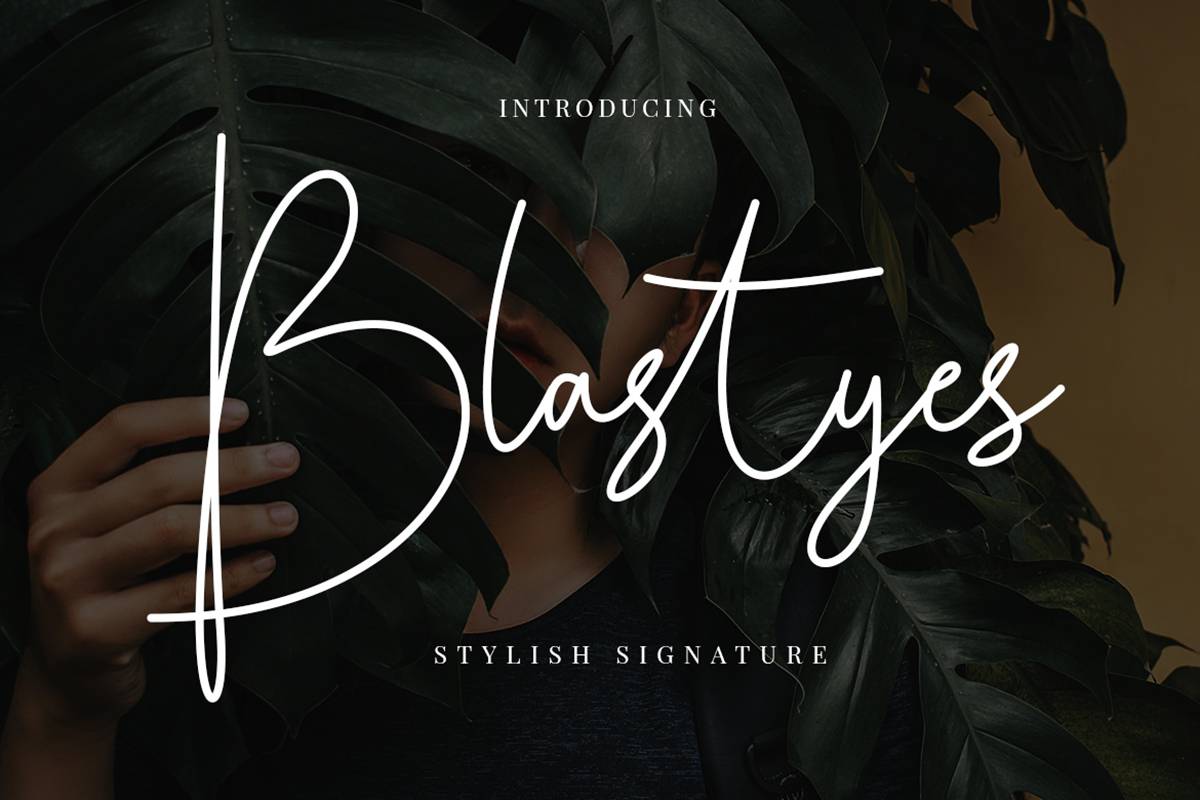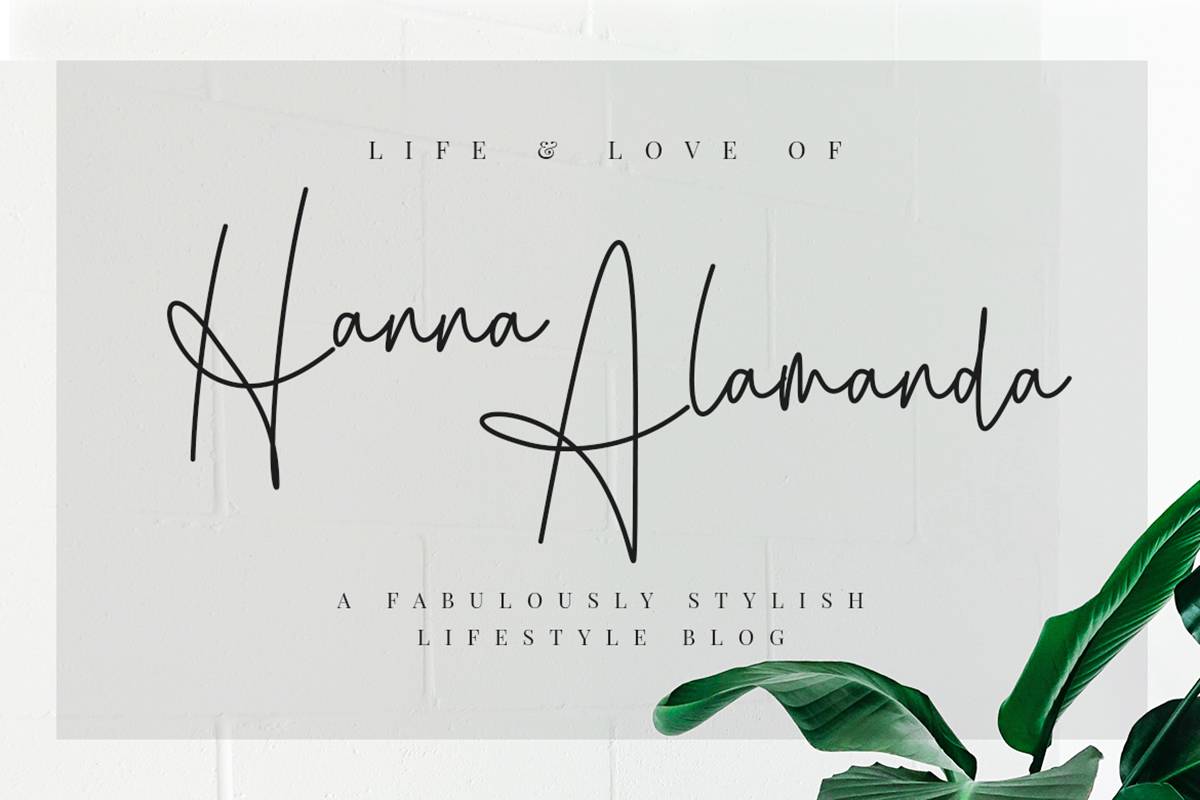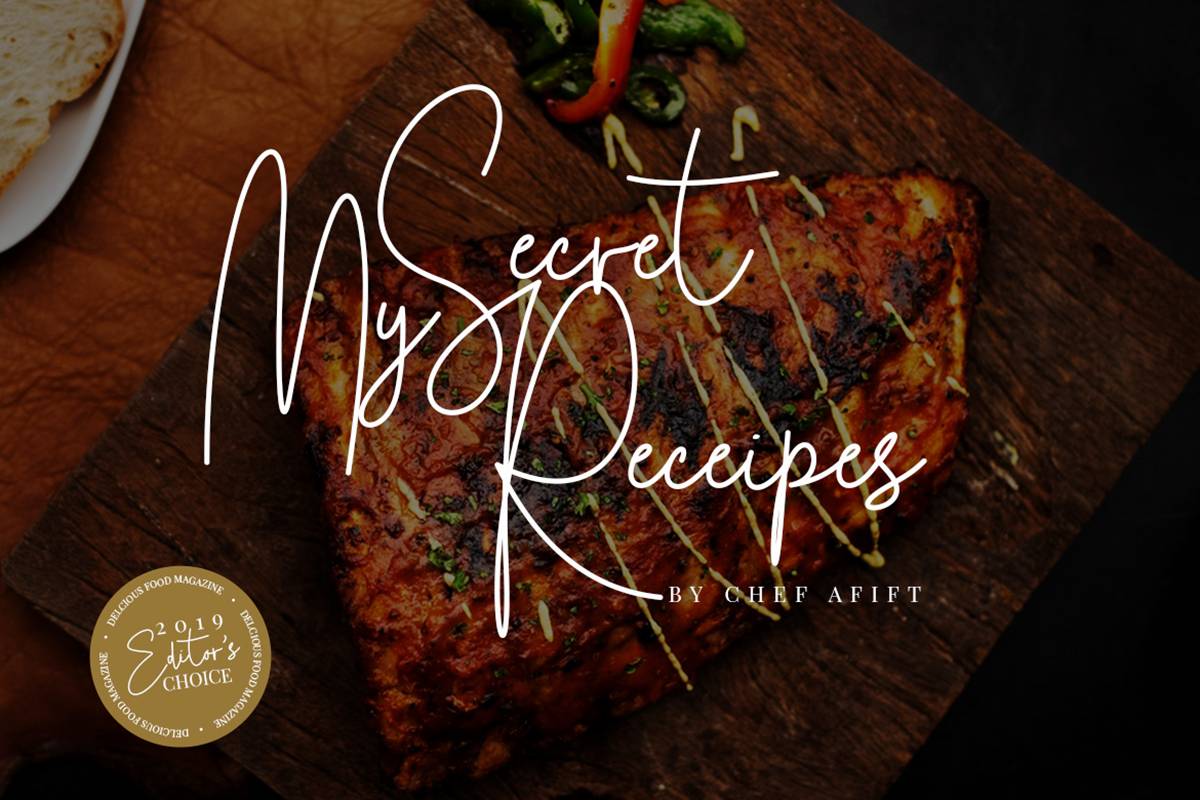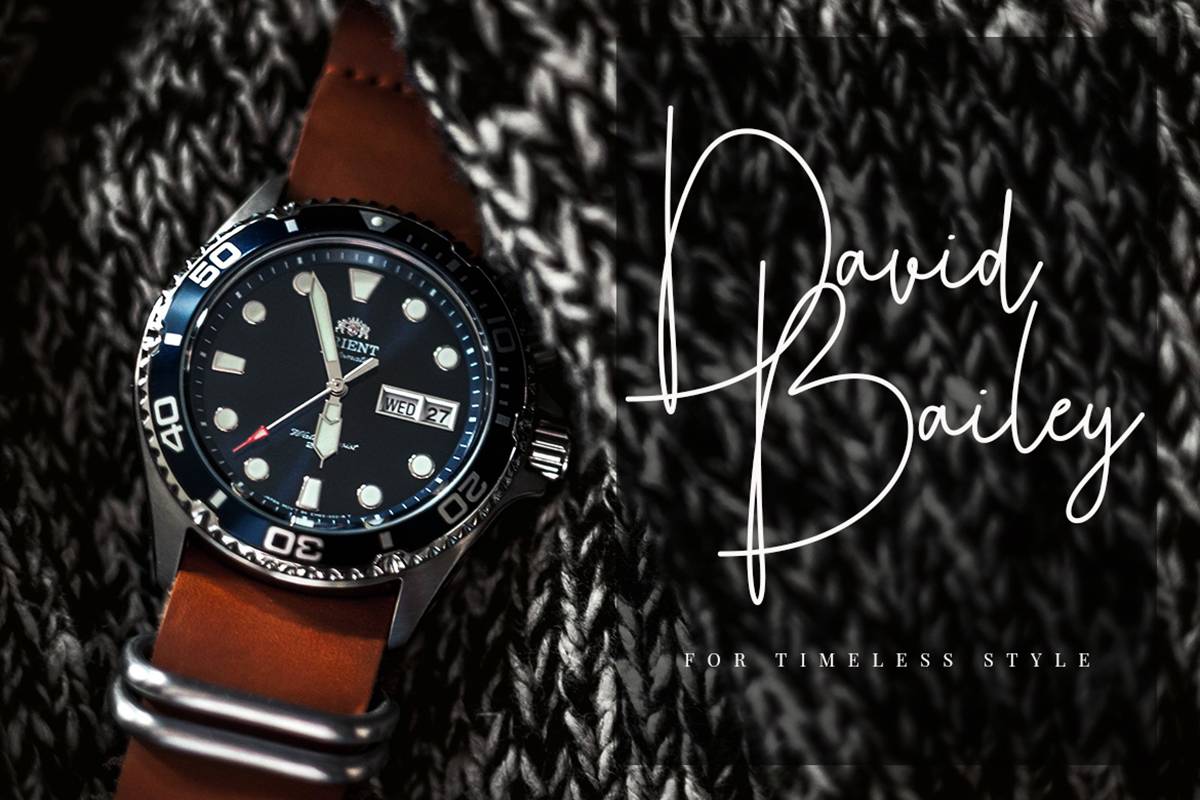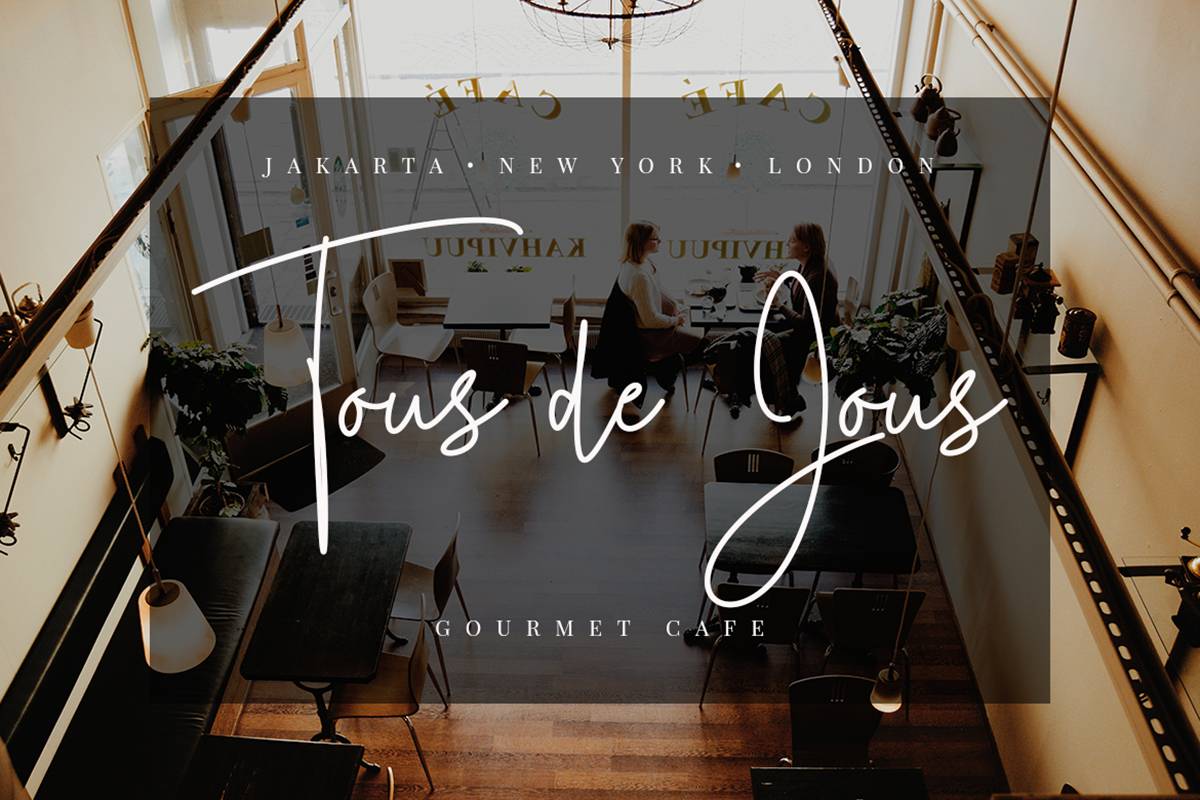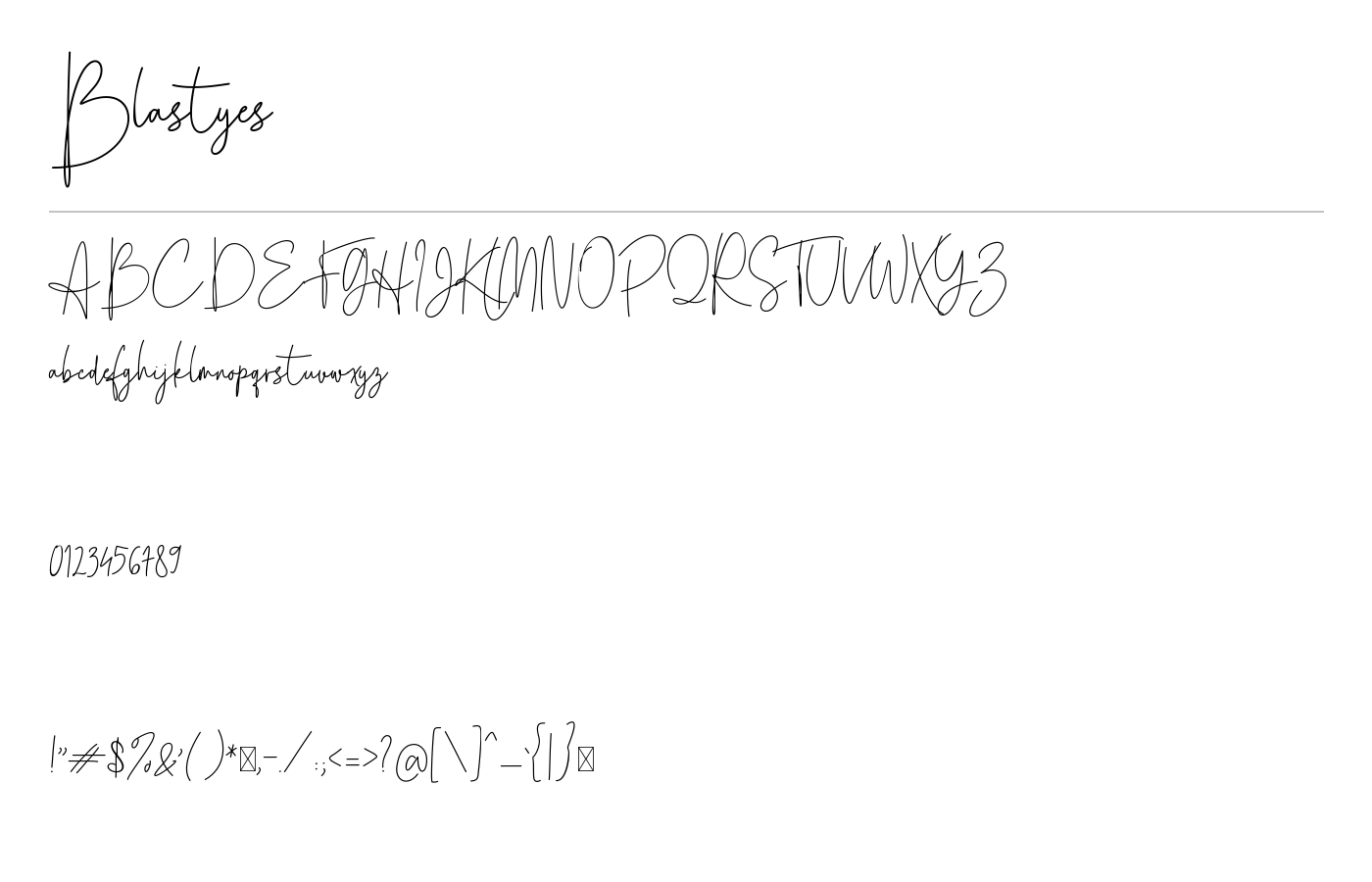
Blastyes Signature Font is a delicate, thin script typeface that mimics elegant, flowing handwriting with slender strokes and a casual, airy feel. Its tall, narrow letterforms with unique, playful loops make it perfect for adding a personal, stylish touch to branding, invitations, and logos that want to convey sophistication and creativity. This font works best in designs where a refined yet approachable handwritten look is desired, especially in fashion, beauty, and lifestyle contexts.
Blastyes Signature Font
About Blastyes Signature Font